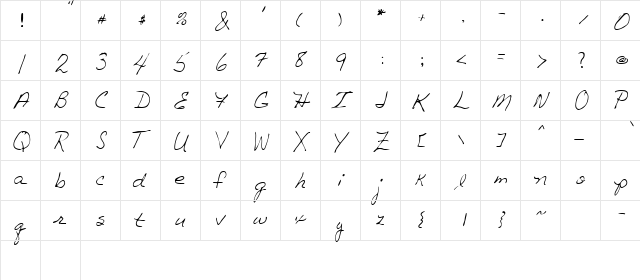
Linda Regular
Design Context for Linda Typeface
Linda is a composed and adaptable typeface that performs quietly and consistently across a wide range of design contexts.